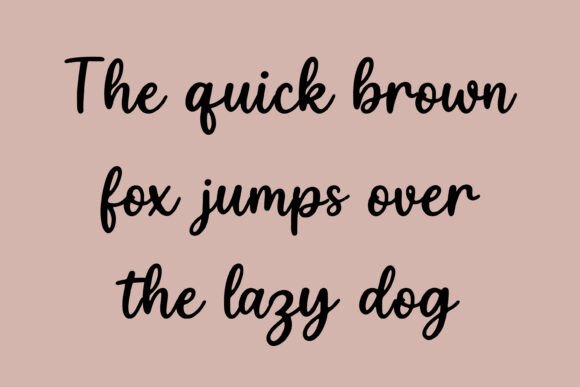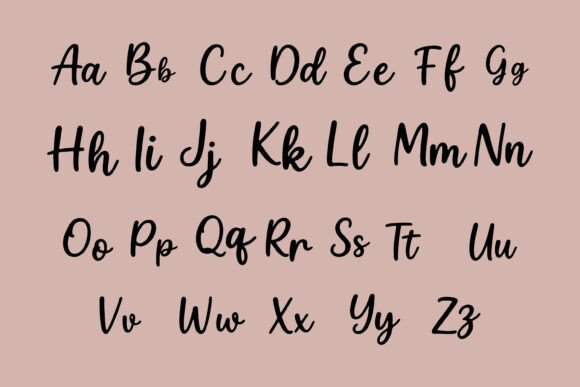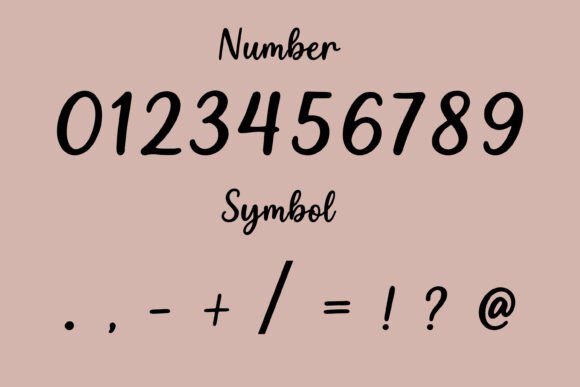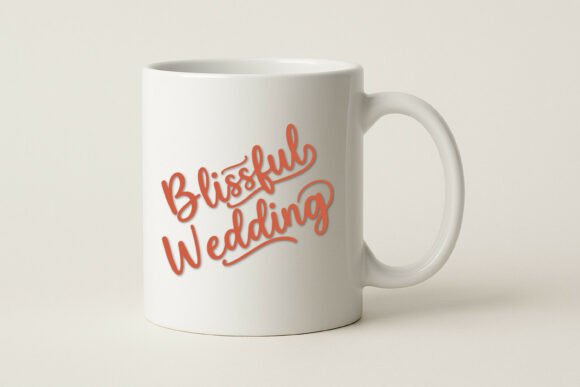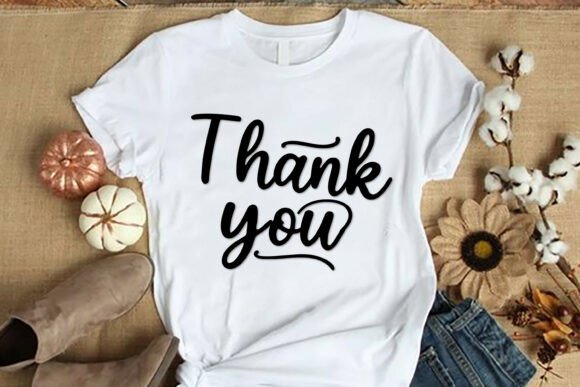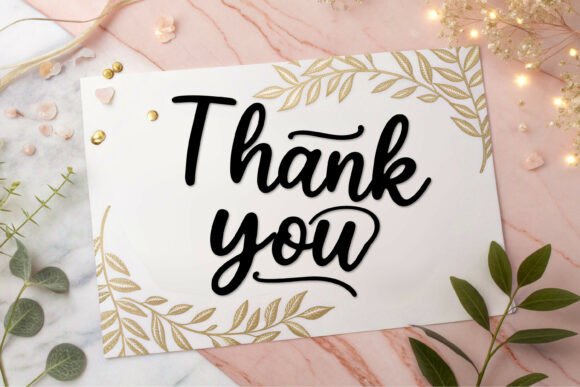
Unveiling the Blissful Wedding Font: A Romantic Script for Unforgettable Moments
I still remember the time I was working on a wedding invitation project, and I just couldn’t find the perfect font to capture the essence of the couple’s special day. The font had to be elegant, romantic, and convey a sense of joy and celebration. That’s when I stumbled upon the Blissful Wedding font, and it instantly became my go-to choice. In this article, I’ll share my experience with this beautiful script typeface, its features, and how to make the most of it in your designs.
A Personal Review: What I Love About Blissful Wedding
The Blissful Wedding font has won my heart with its picturesque infusion of vitality, making it perfect for artistic visions. Here are some of the things I love about it:
• ✨ Romantic elegance: The font flows with a clean, flowing handwriting style that exudes romance and sophistication.
• ✅ Delicate swashes: The font features beautiful swashes that add a touch of whimsy and playfulness to any design.
• ✨ Exceptional legibility: The generous letter spacing and smooth connections ensure that the font is easy to read, even in formal invitations and sensitive correspondence.
• ✅ Premium feel: The bold weight of the lettering and consistent baseline give the font a premium, highly personalized feel.
While the Blissful Wedding font is amazing, there are a few things to keep in mind:
• ⚠️ Limited use of ligatures: While the font does include ligatures, they might not work well in all design contexts.
• 🤔 Occasional kerning issues: As with any font, you might need to adjust the kerning to get the perfect look.
The Blissful Wedding font was designed with the intention of capturing the joy and emotion of life’s most cherished occasions. The designer aimed to create a font that would evoke a sense of romance and celebration, while also being highly legible and versatile. The result is a beautiful script typeface that’s perfect for wedding calligraphy, formal invitations, and other special occasions.
What is the Blissful Wedding font best used for? The Blissful Wedding font is perfect for wedding calligraphy, formal invitations, and other special occasions.
Is the Blissful Wedding font suitable for body text? While the font is highly legible, it’s best used for headings and titles rather than body text.